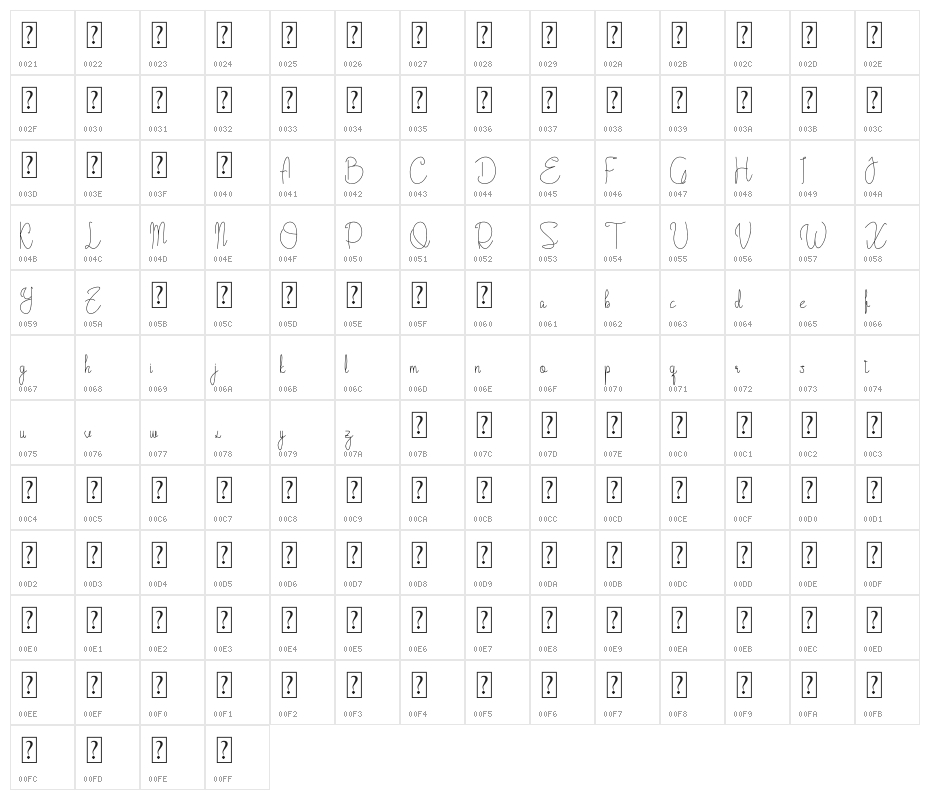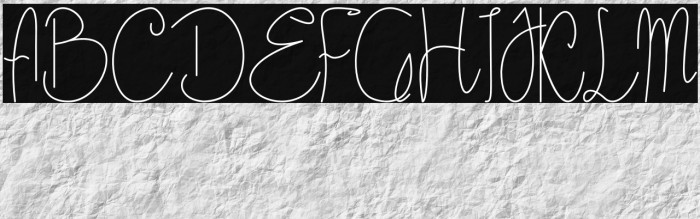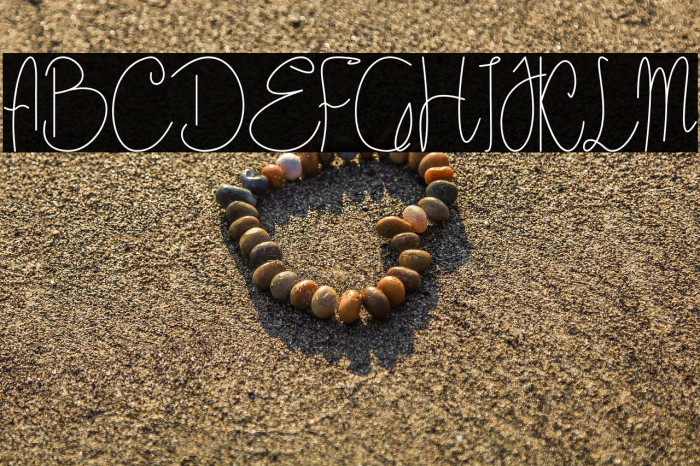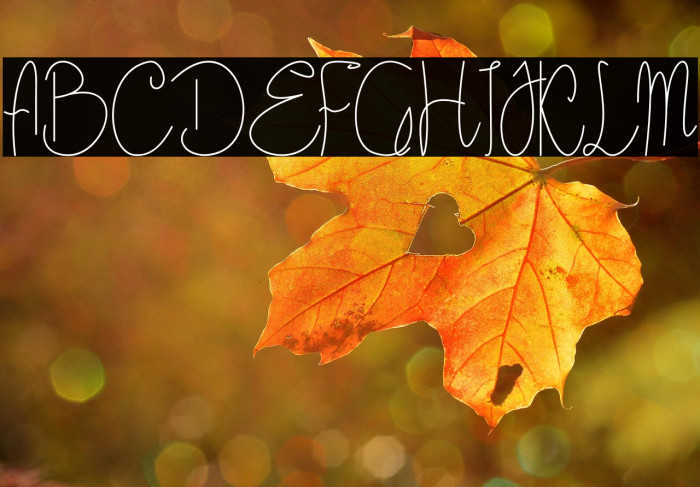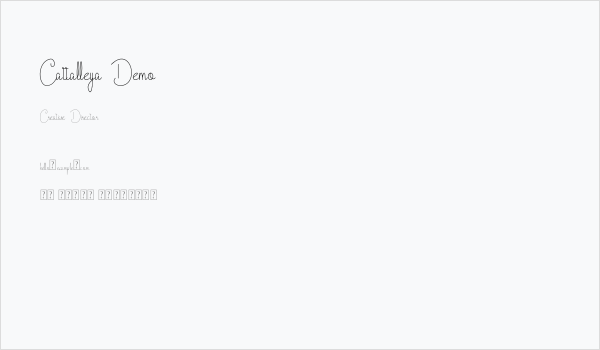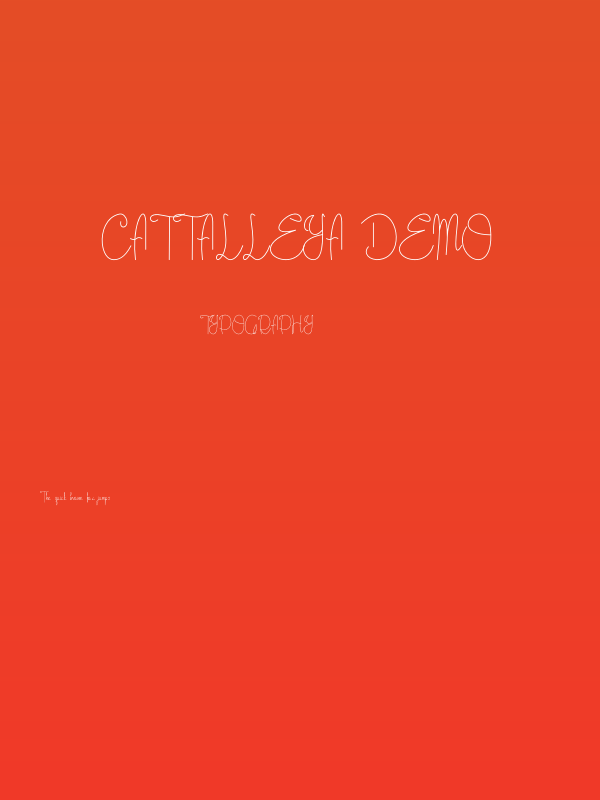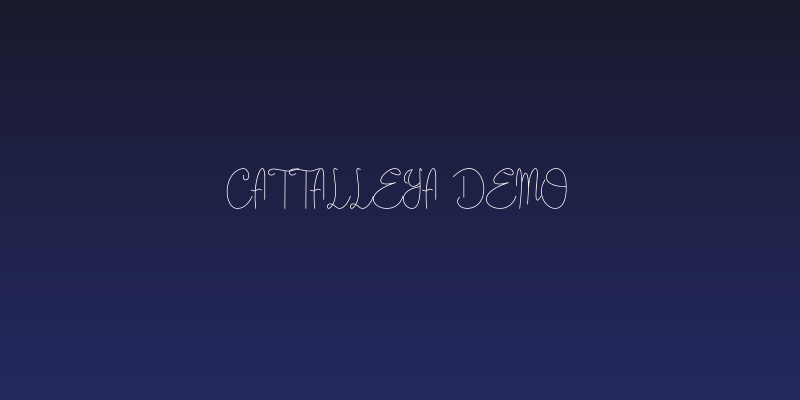
Cattalleya Demo Font
Cattalleya Demo Description
This font features an elegant and flowing script style, characterized by its thin, delicate lines and graceful curves. The uppercase letters are tall and slightly narrow, with a whimsical flair that adds a touch of sophistication. The lowercase letters maintain a consistent flow, enhancing readability while preserving the artistic quality. The font's overall appearance is airy and light, making it suitable for projects that require a touch of elegance and charm. The absence of bold or italic variations suggests a focus on maintaining a clean and consistent aesthetic.
Overall StyleElegant
Use CaseHeadlines, Decorative text
Proposed ProjectsIdeal for wedding invitations, elegant branding, greeting cards, and decorative headings.